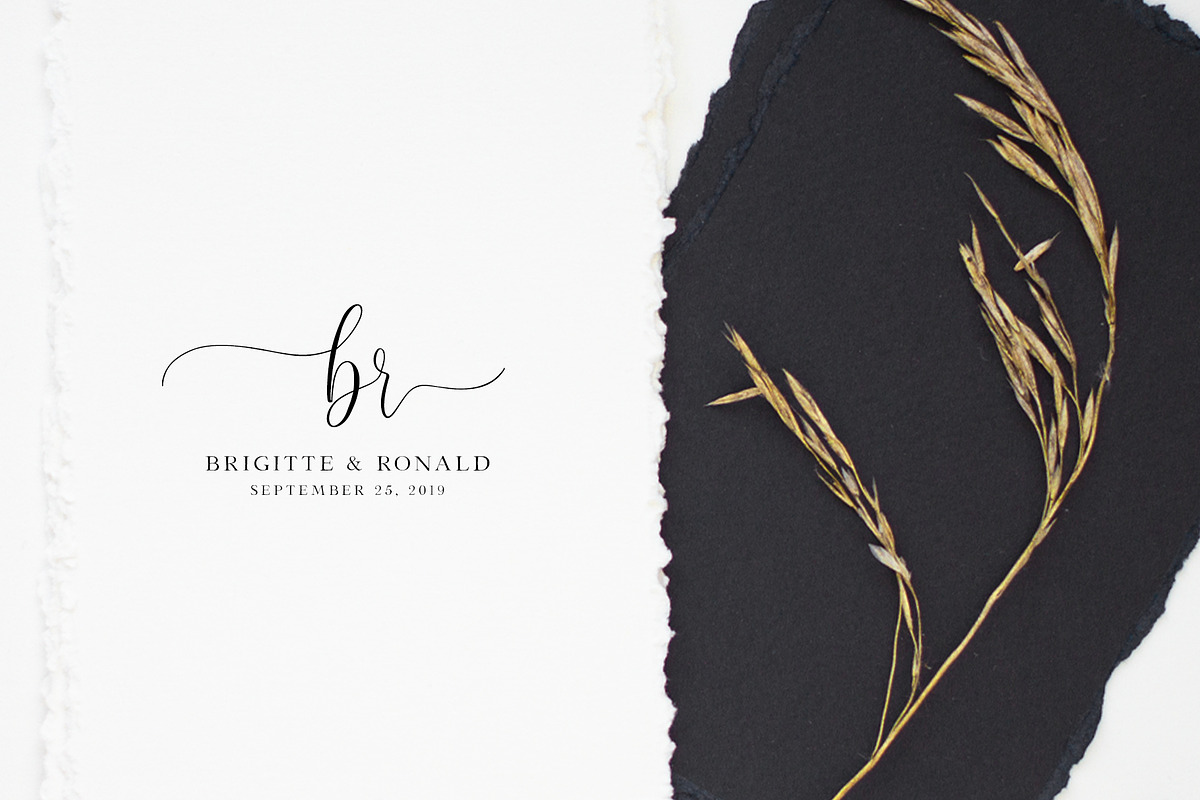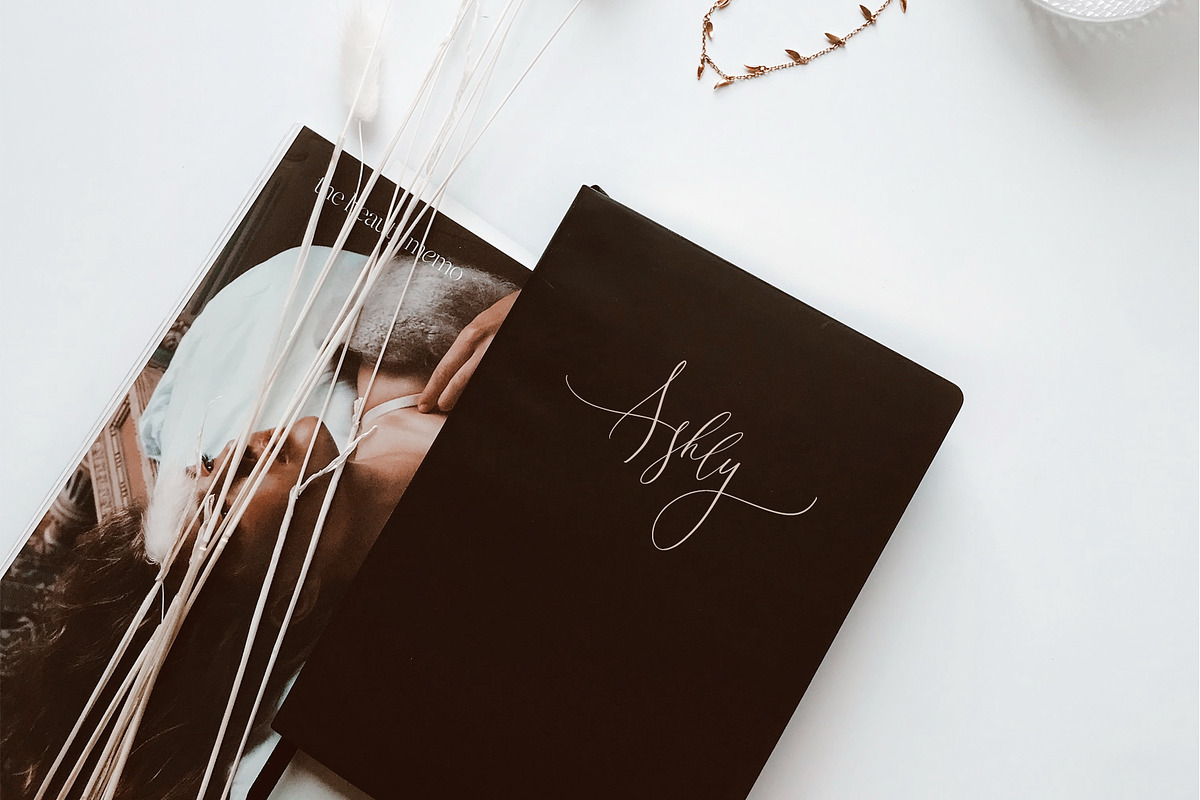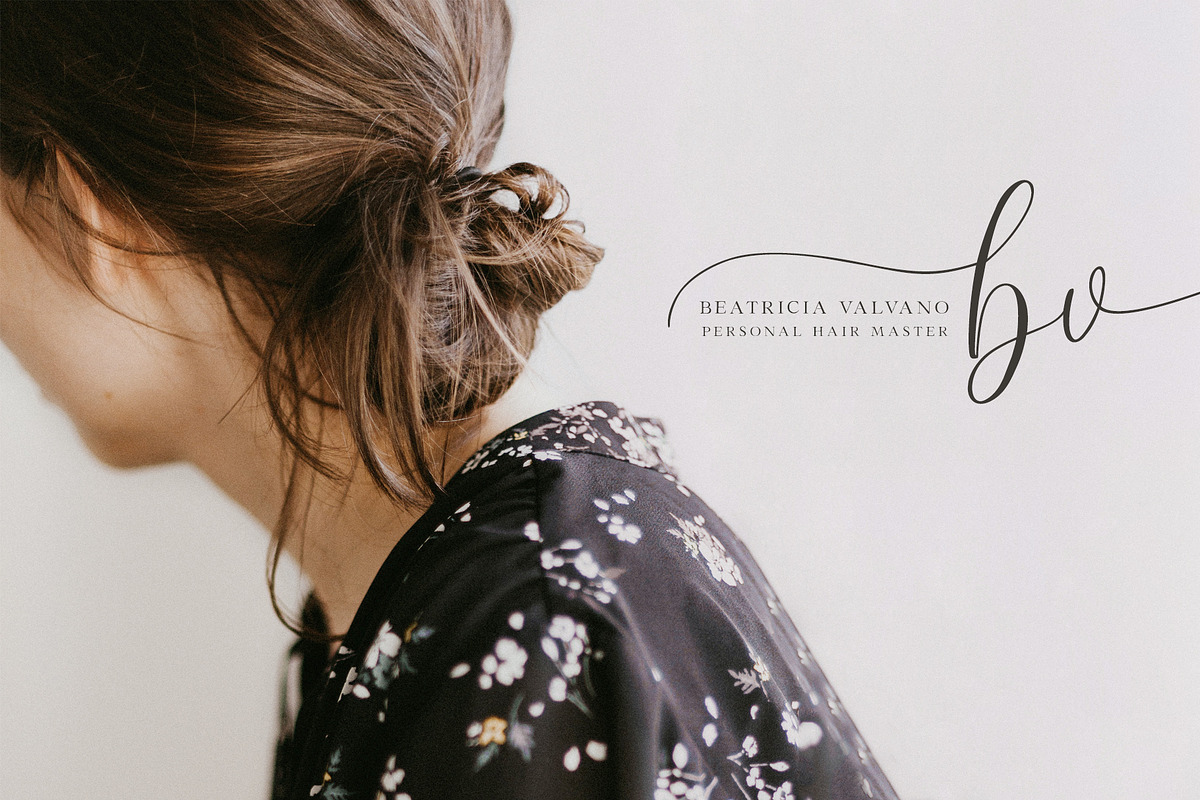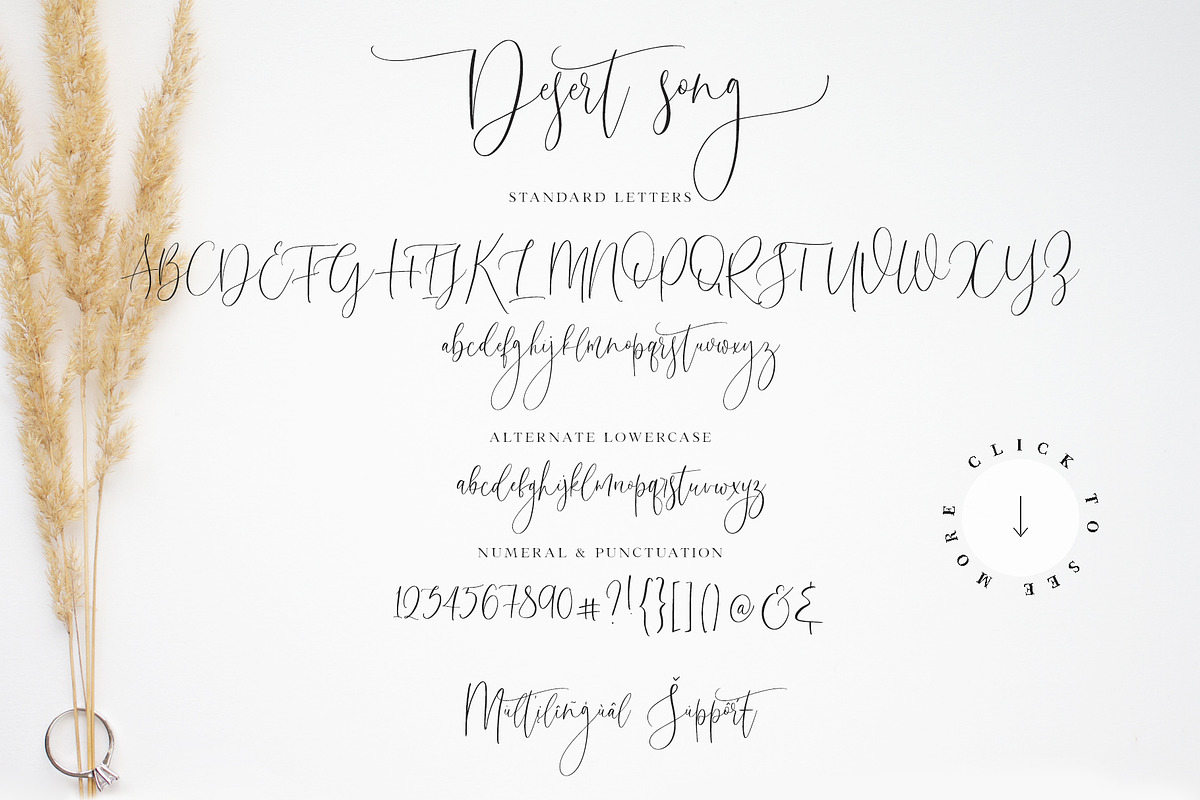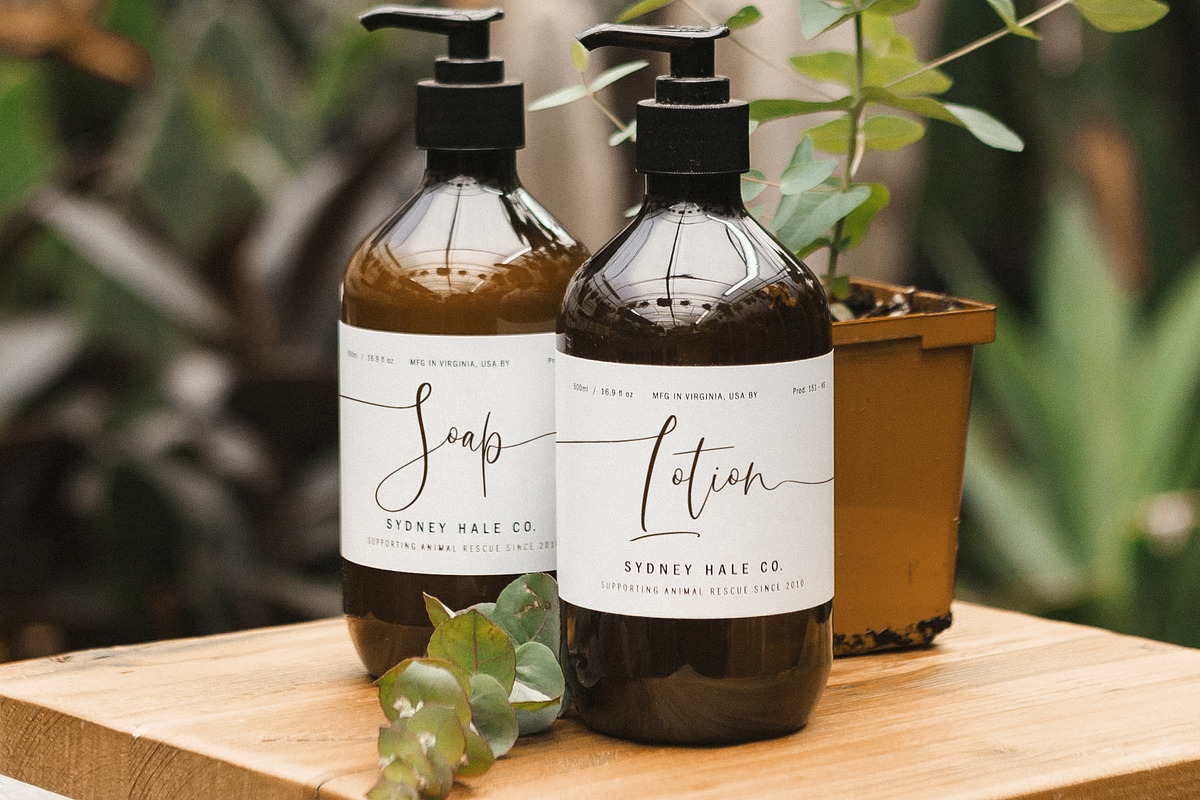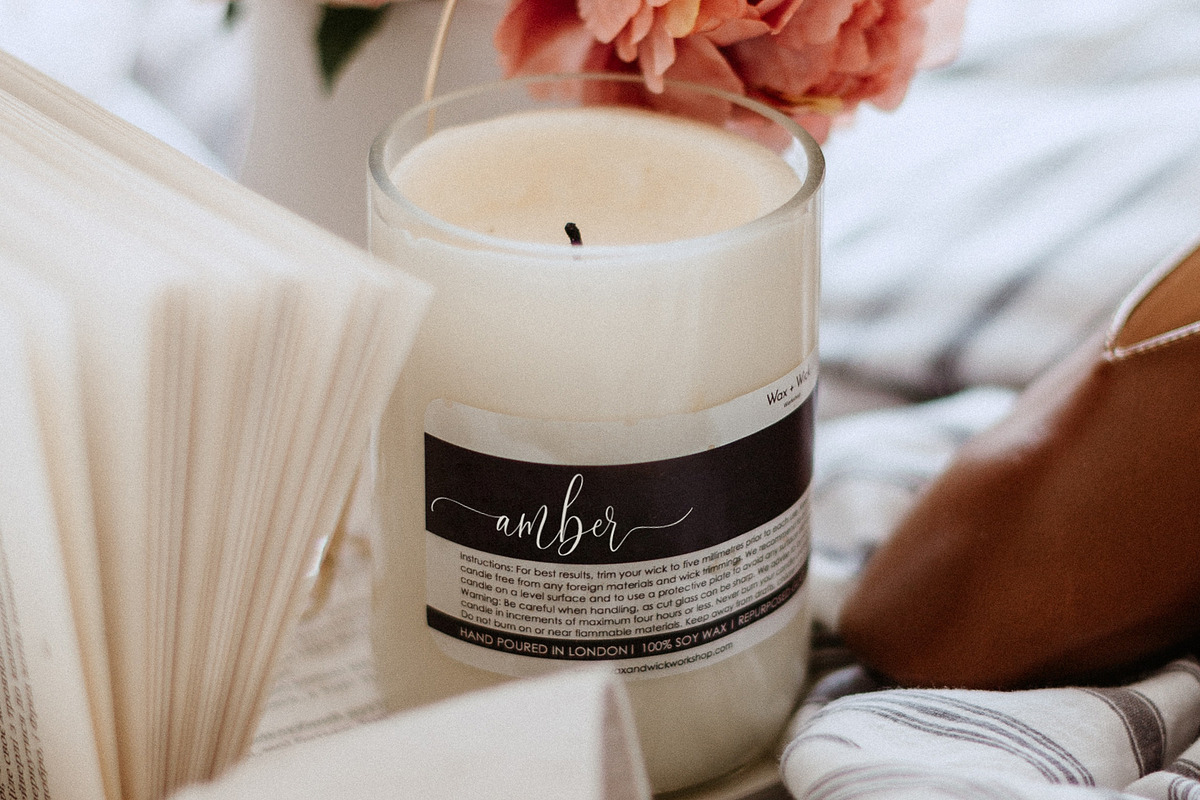
Desert Song | Calligraphy Script
Desert Song Script is a beautiful font for those who are needing of elegance and stylish in their designs and particularly well suited for wedding invitations, cards and feminine branding.
Desert Song Script includes Uppercase and Lowercase standard Characters, Numbers and Punctuation. Also the font contains alternate sets of Uppercase and Lowercase ligatures and stylistic alternates (for initial and final letters) to perfectly re-create natural calligraphy.
Font is available for Western European, Central European and South Eastern European Languages and you can check your language typing characters in text box above.